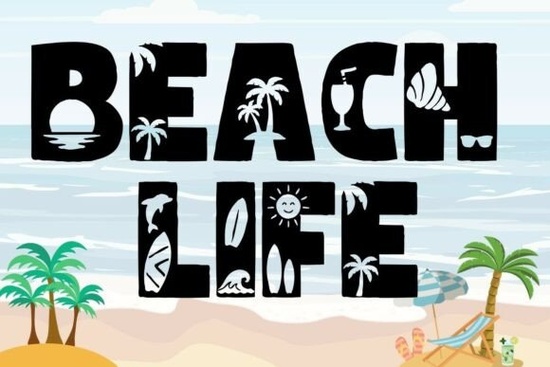
If you're looking for a playful, sun-drenched typeface that instantly signals summer without needing extra graphics or clipart the Beach Life Font is a straightforward choice. It’s not just a decorative font with a beachy name; every uppercase letter and digit (A–Z and 0–9) includes hand-illustrated coastal details: tiny palm fronds tucked into the curves of letters, surfboards balancing on crossbars, starfish dotting descenders, and gentle wave motifs built right into the shapes. That means your text is the decoration no layering, no masking, no extra design steps.
When does this font actually save time?
It shines where visual consistency matters but design speed matters more like when you’re cranking out a batch of vacation-themed products. Think: a set of matching beach party flyers, a line of sublimation mugs for a local surf shop, or coordinating stickers and tote bags for a small business launch. Because each glyph already carries the theme, you avoid hunting for compatible icons or adjusting spacing to make clipart “fit.” You type “SUNSET VACATION”, and the font delivers both message and mood in one go.
What kinds of projects pair best with it?
It’s designed for context not just aesthetics. Here’s where it fits naturally:
- Summer apparel: T-shirts, tank tops, and drawstring bags where light-hearted, legible typography stands out on fabric
- Travel branding: Small businesses like boutique hostels, kayak rentals, or island coffee roasters wanting friendly, location-specific identity
- Print-on-demand shops: Low-effort, high-recognition designs for platforms like Redbubble or Printful especially for seasonal drops
- Digital crafts: Social media story templates, Canva invitations, or printable wall art aimed at families planning beach getaways
It’s not meant for dense body text or formal documents and that’s by design. Like the dinosaur font or the cute dog font, it’s a focused tool: expressive, thematic, and purpose-built. You wouldn’t use a script font for a safety sign, and you wouldn’t reach for Beach Life Font to typeset a legal contract. But for a “Welcome to Maui!” welcome mat design? Or a “Surf Camp ’24” enamel pin? It clicks right into place.
How does it compare to other themed fonts?
Unlike many tropical fonts that rely on generic palm tree swashes or overused tiki motifs, Beach Life Font integrates its theme within the letterforms themselves so it feels cohesive, not slapped-on. There’s no separate dingbat set to manage, no mismatched line weights between text and icon. And because it includes full alphanumeric coverage (not just A–Z), you can confidently use it for dates (“July 12–16”), prices (“$24.99”), or event codes (“BEACH2024”) without switching fonts mid-design.
For crafters who work across mediums sublimation, vinyl cutting, screen printing, or digital downloads it’s also reliable in color separation and clean cut lines. No overlapping paths, no stray anchor points. That’s a quiet but meaningful win when prepping files for production.
It’s fun, yes but keep expectations grounded. This isn’t a variable font with dozens of weights or language support beyond basic Latin characters. It’s a single-style, uppercase + numerals decorative font. If you need lowercase letters, multilingual glyphs, or stylistic alternates, you’ll want to pair it with a neutral sans-serif for supporting text. That’s actually how most designers use it: Beach Life Font for headlines and focal words, a simple companion font for details and fine print.
Also worth noting: while it’s optimized for summer themes, it doesn’t have to be limited to July and August. Think “coastal living” year-round nautical baby showers, ocean conservation campaigns, or even minimalist seaside real estate branding. Its warmth comes from detail, not just color.